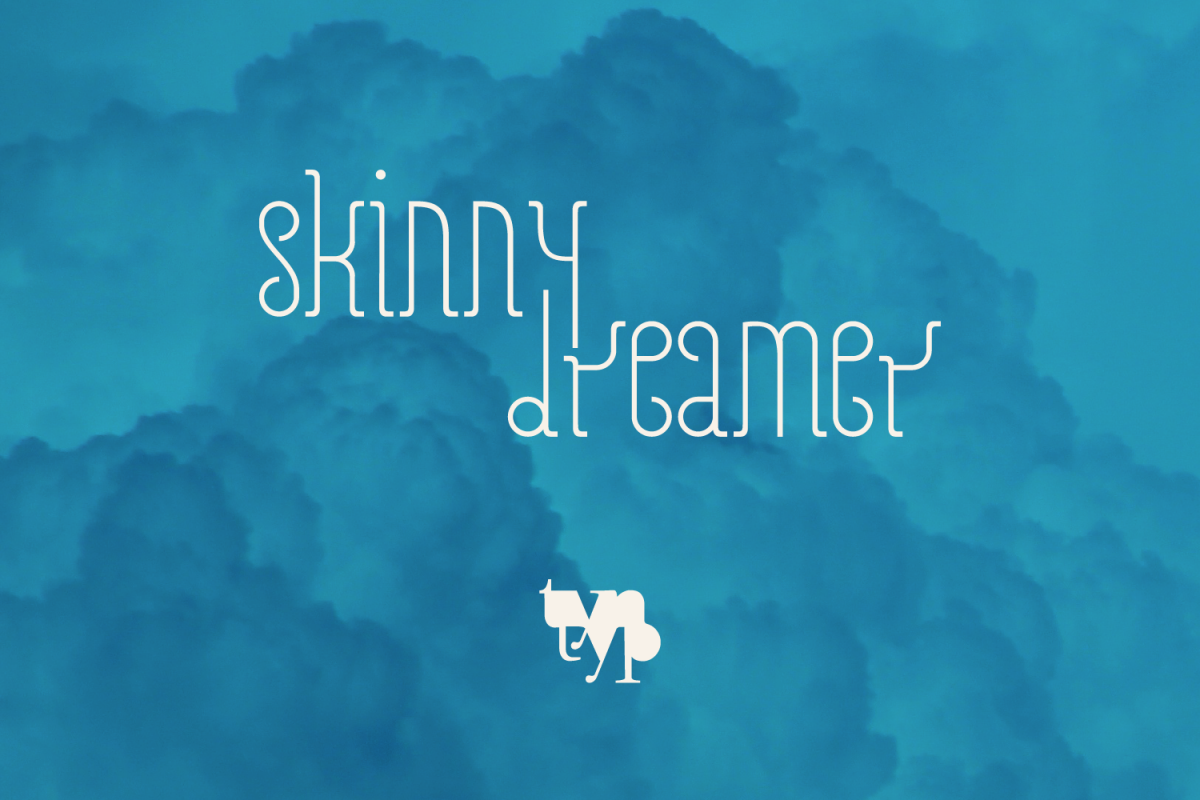
Skinny Dreamer Family
Skinny dreamer was designed to be used within the music industry, retro elements help to convey the idea of performance which is contrasted by calculated curves and corners giving this typeface a modern feel.
Rising from the influence of the 60's this typeface delivers a punch with its quirky characters. The design has been influenced by signage from the 1960's with a strong connection to some of the limitations of neon lettering with a modern twist.
The family contains four fonts each of which contains a host of extra symbols, ligatures and discretional ligatures.